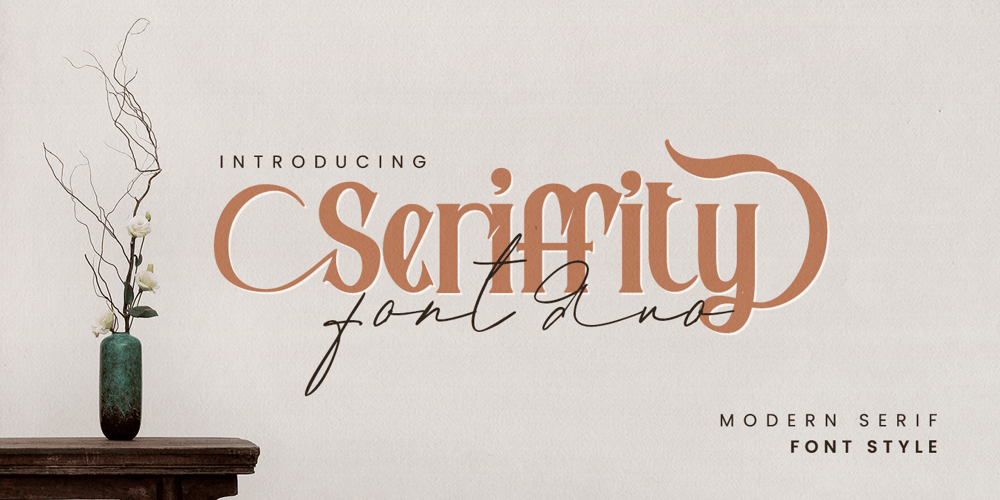
Seriffity
Seriffity font
Seriffity Font Family was designed by Saiful and published by MotionTail. Seriffity contains 2 styles and family package options. Give your designs an authentic handcrafted feel. “Seriffity” is perfectly suited to signature, stationery, logo, typography quotes, magazine or book cover, website header, clothing, branding, packaging design and more.Files included:- uppercase letters- multilingual symbols- numerals- punctuationThanks for use this font